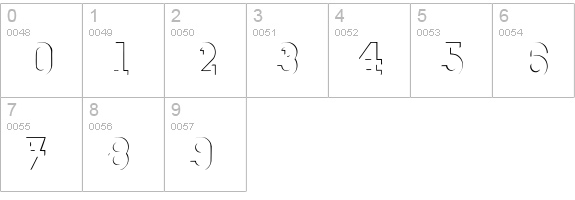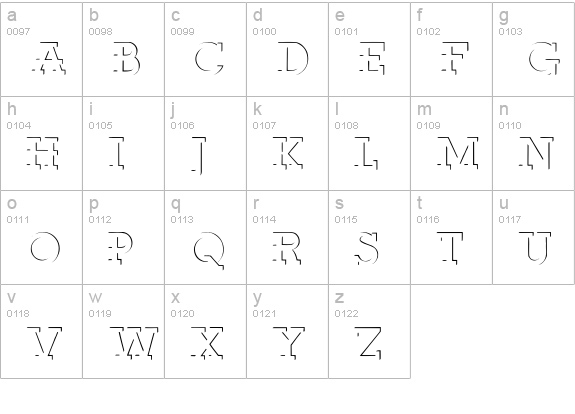
ReliefDeco Font Details
Introducing ReliefDeco, a breathtakingly beautiful font that effortlessly combines elegance with a touch of decorative flair. This font exudes a sense of relief and sophistication, making it the perfect choice for any project that requires a touch of class. ReliefDeco features meticulously crafted letterforms that are both bold and graceful, with intricate details that catch the eye and captivate the imagination. Each character is expertly designed to showcase its unique personality, ensuring that your text stands out and makes a lasting impression. One of the most remarkable aspects of ReliefDeco is that it is available for free download at FontsMarket.com. This means that you can easily access and use this stunning font in your design projects without any cost. Whether you're designing a logo, creating eye-catching headlines, or crafting elegant invitations, ReliefDeco is the ideal choice to add a touch of sophistication and style. The versatility of ReliefDeco allows it to seamlessly adapt to various design styles and applications. Its clean lines and smooth curves make it suitable for both modern and vintage-inspired designs, while its decorative elements add a touch of charm and uniqueness. With ReliefDeco, you have the freedom to unleash your creativity and bring your design visions to life. Its wide range of letterforms and characters ensure that you have all the tools you need to create stunning typography layouts that leave a lasting impression. So why wait? Download ReliefDeco for free at FontsMarket.com and embark on a design journey that is bound to impress. Elevate your projects with the elegance and charm of ReliefDeco, and let your creativity soar.